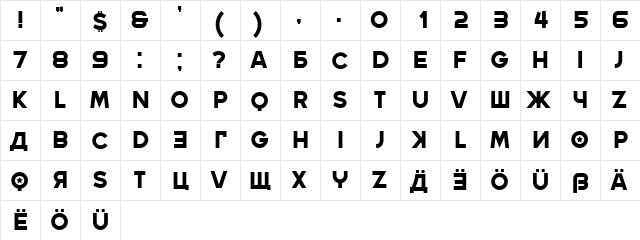
Beograd Regular Font Preview
Beograd Regular
Beograd Regular Font Details
Design Context for Beograd Typeface
Beograd offers clean, dependable letterforms without strong stylistic allegiance, making it a practical choice for designers who need flexibility.